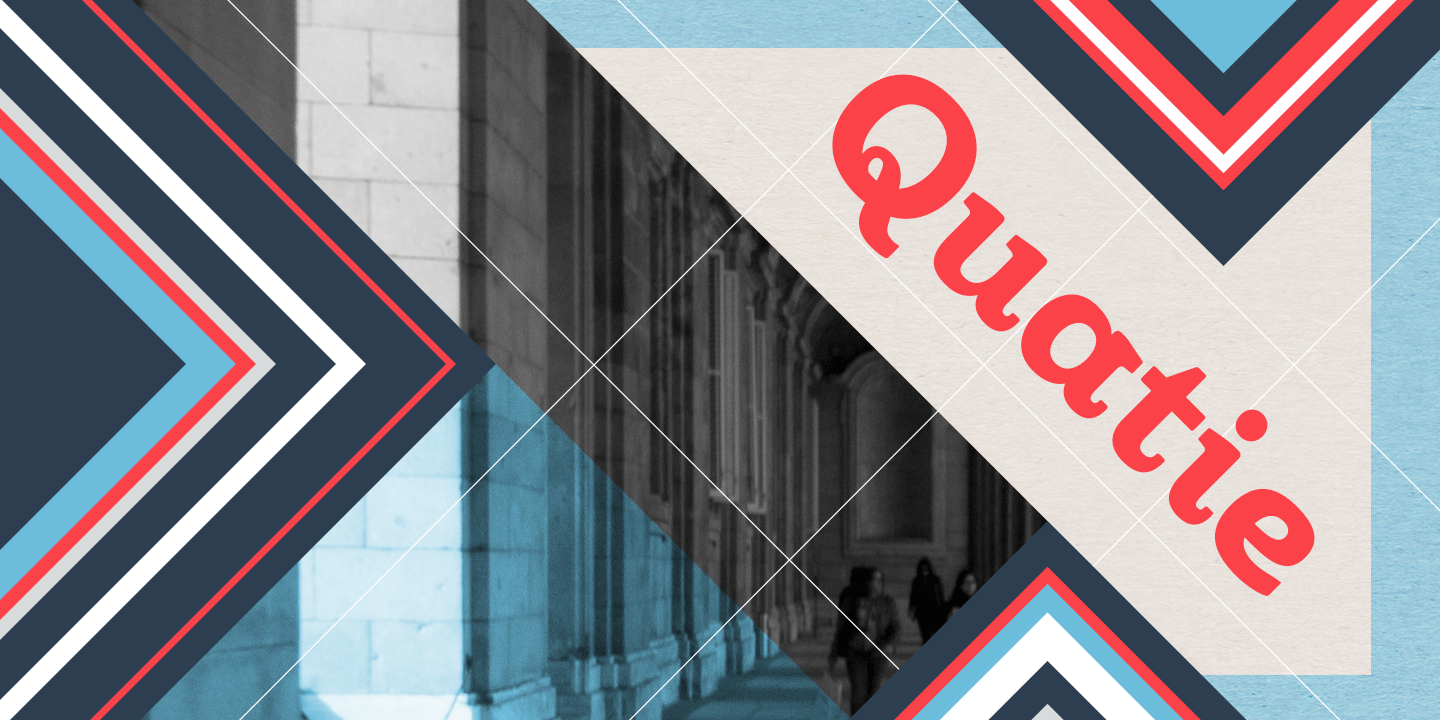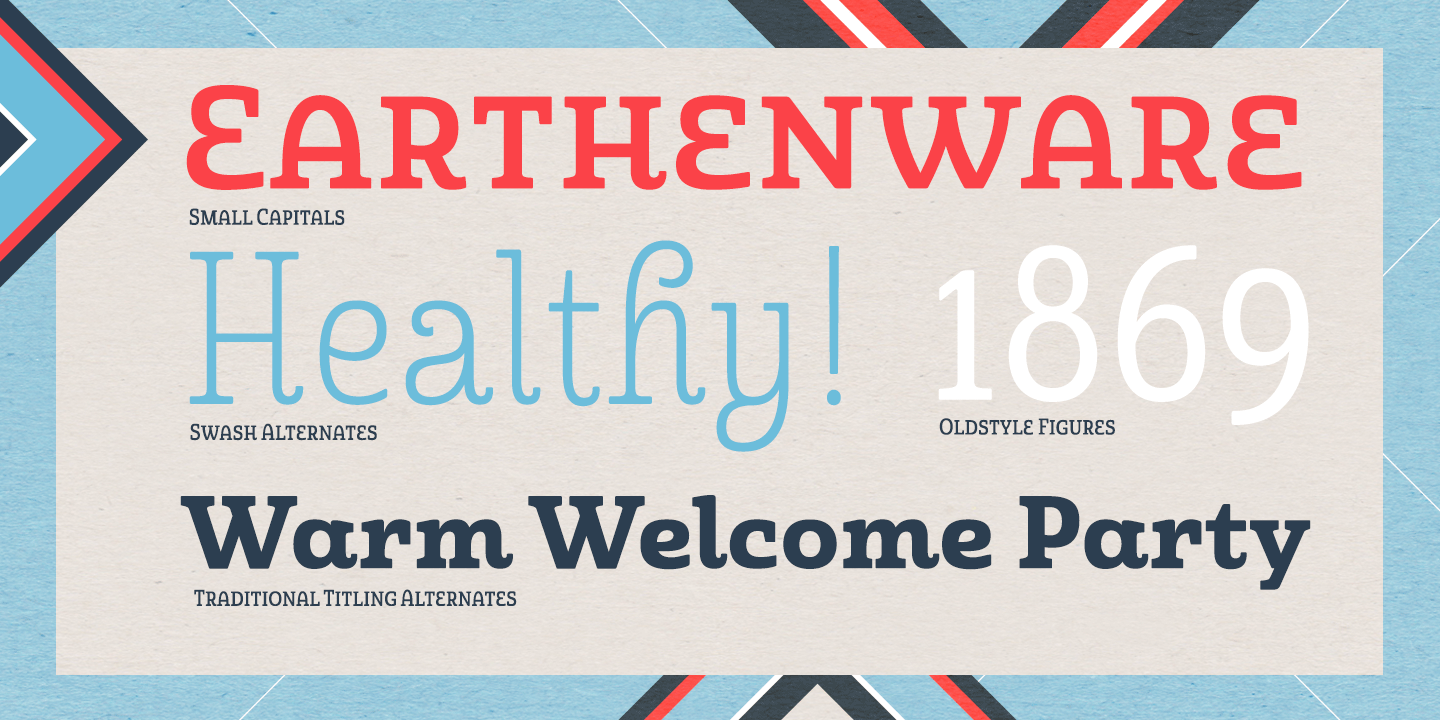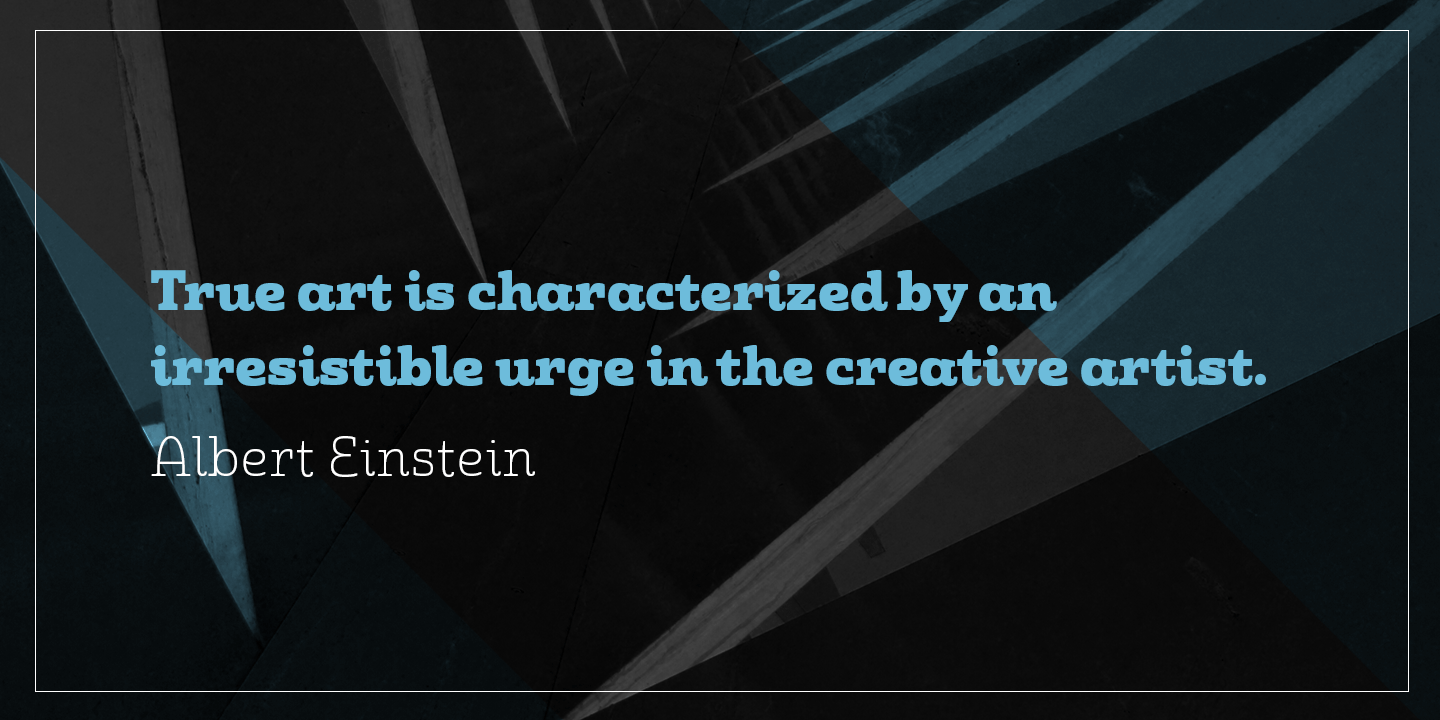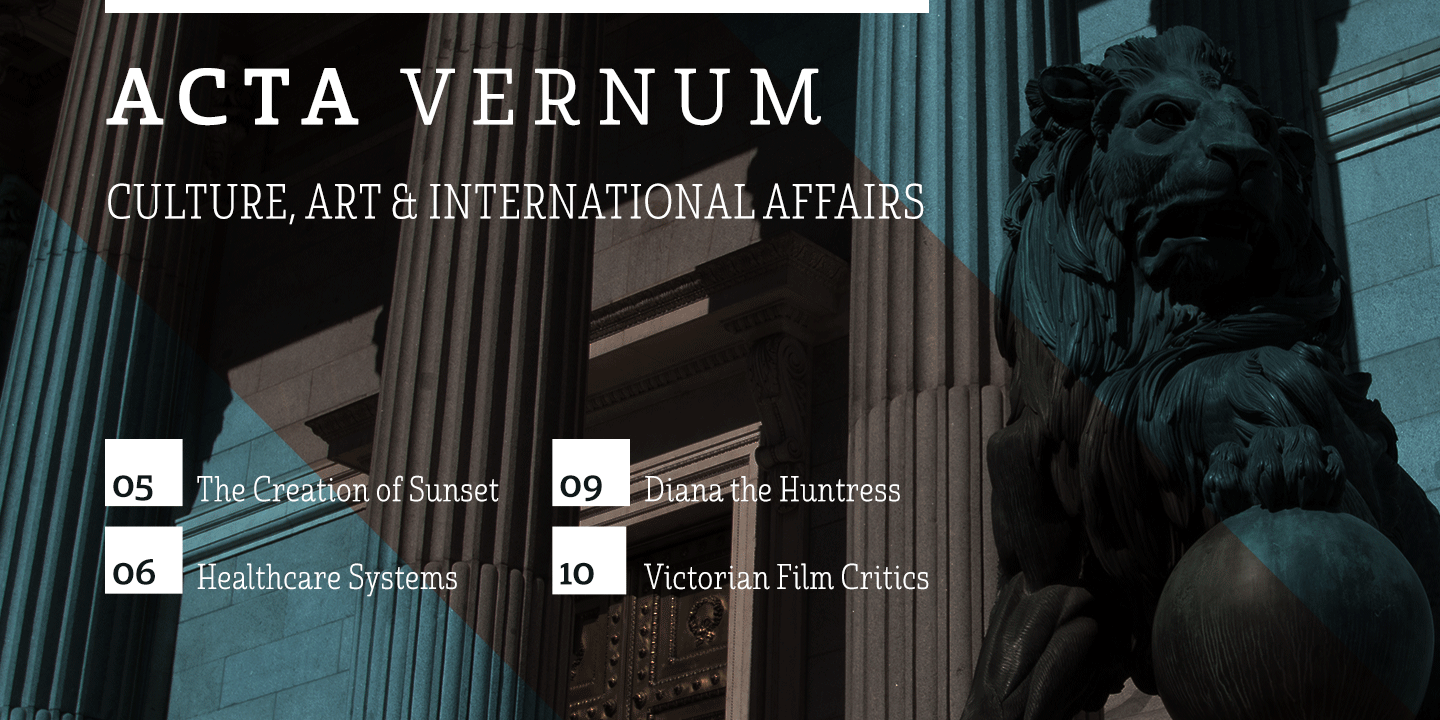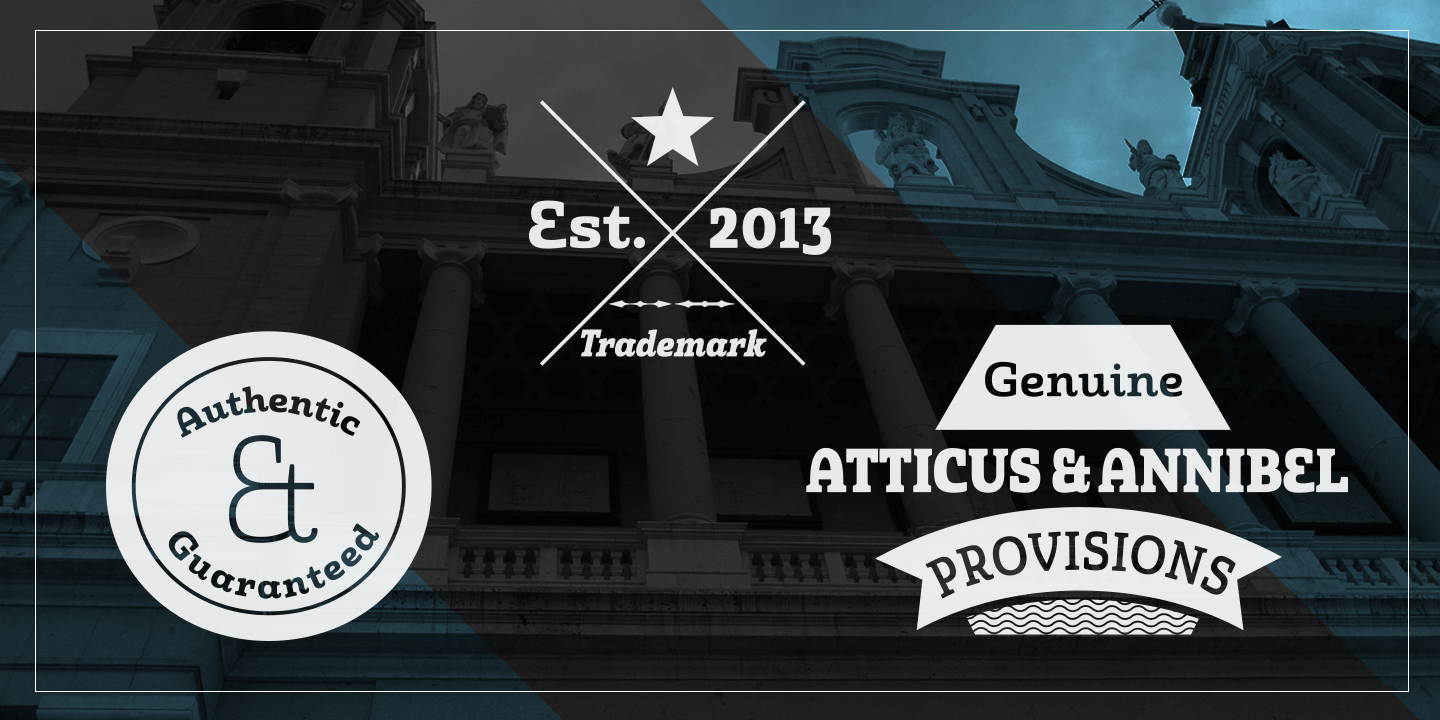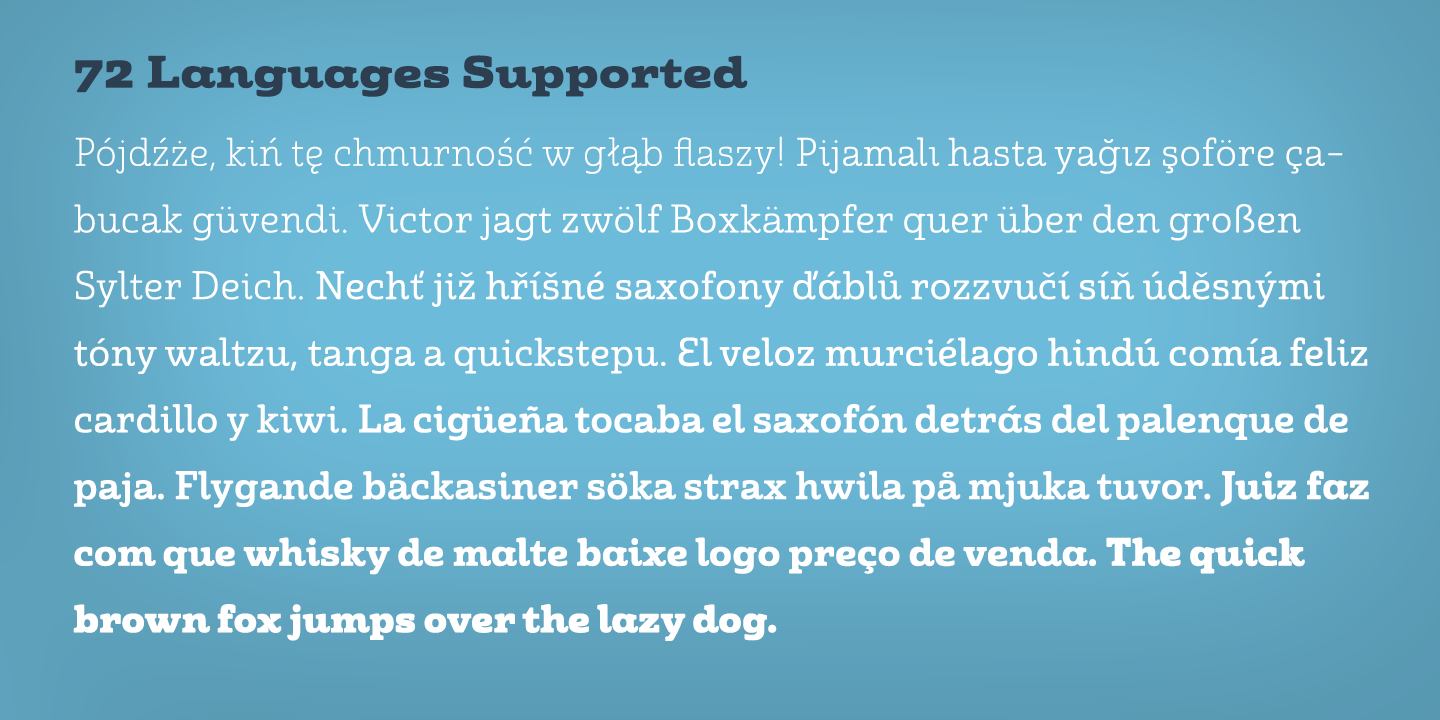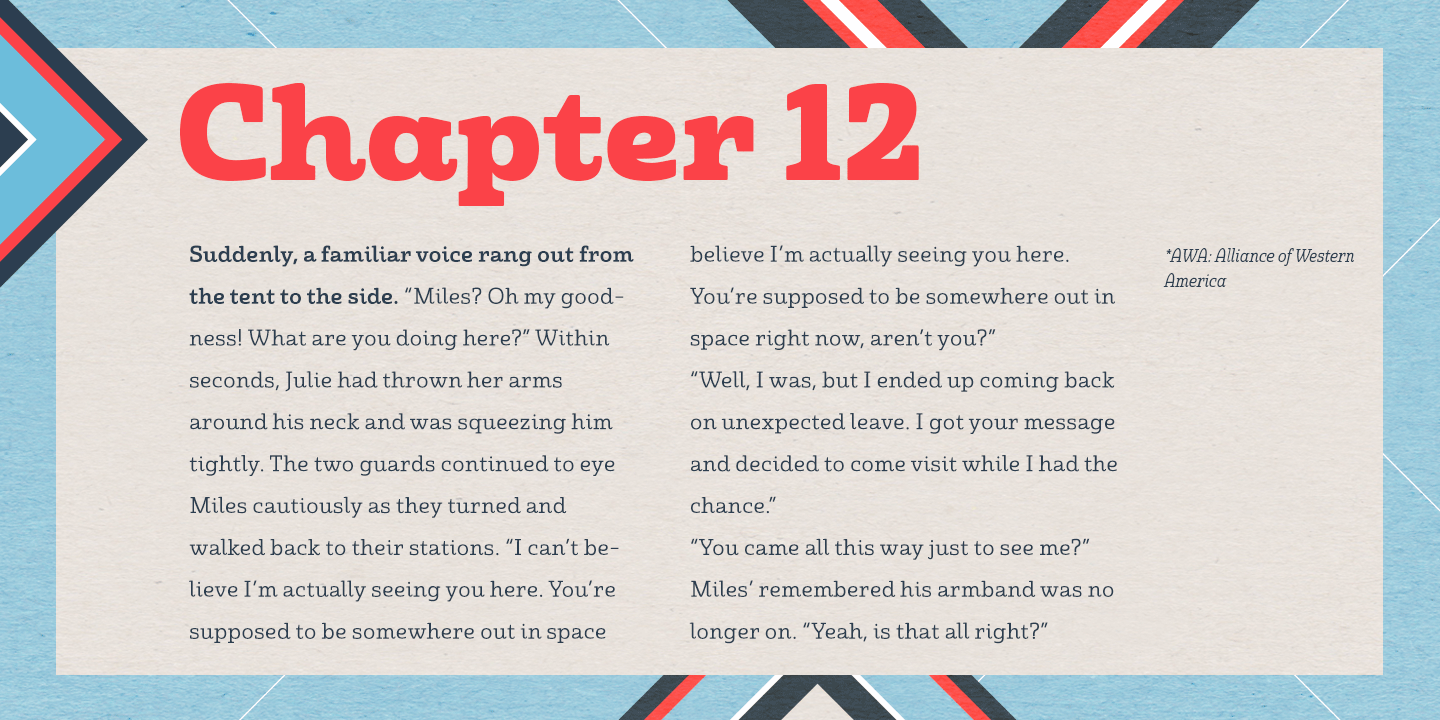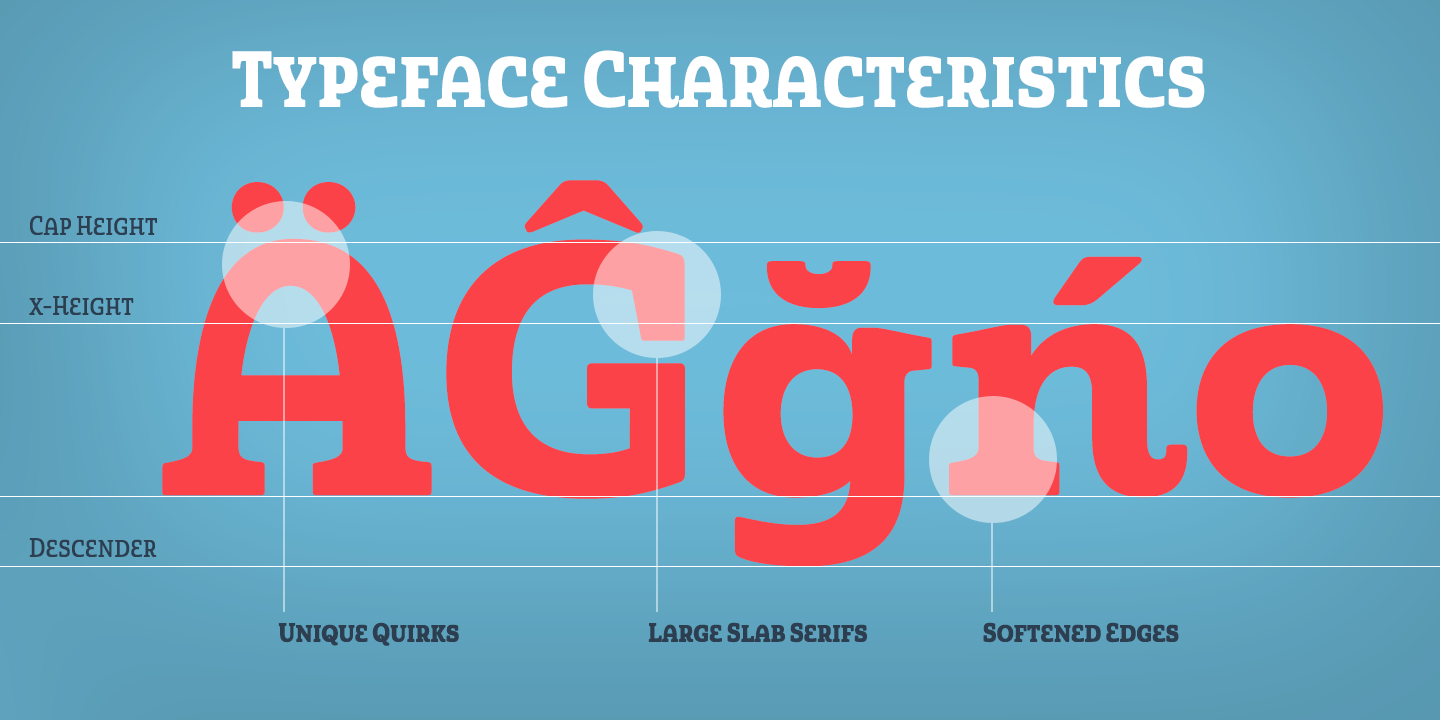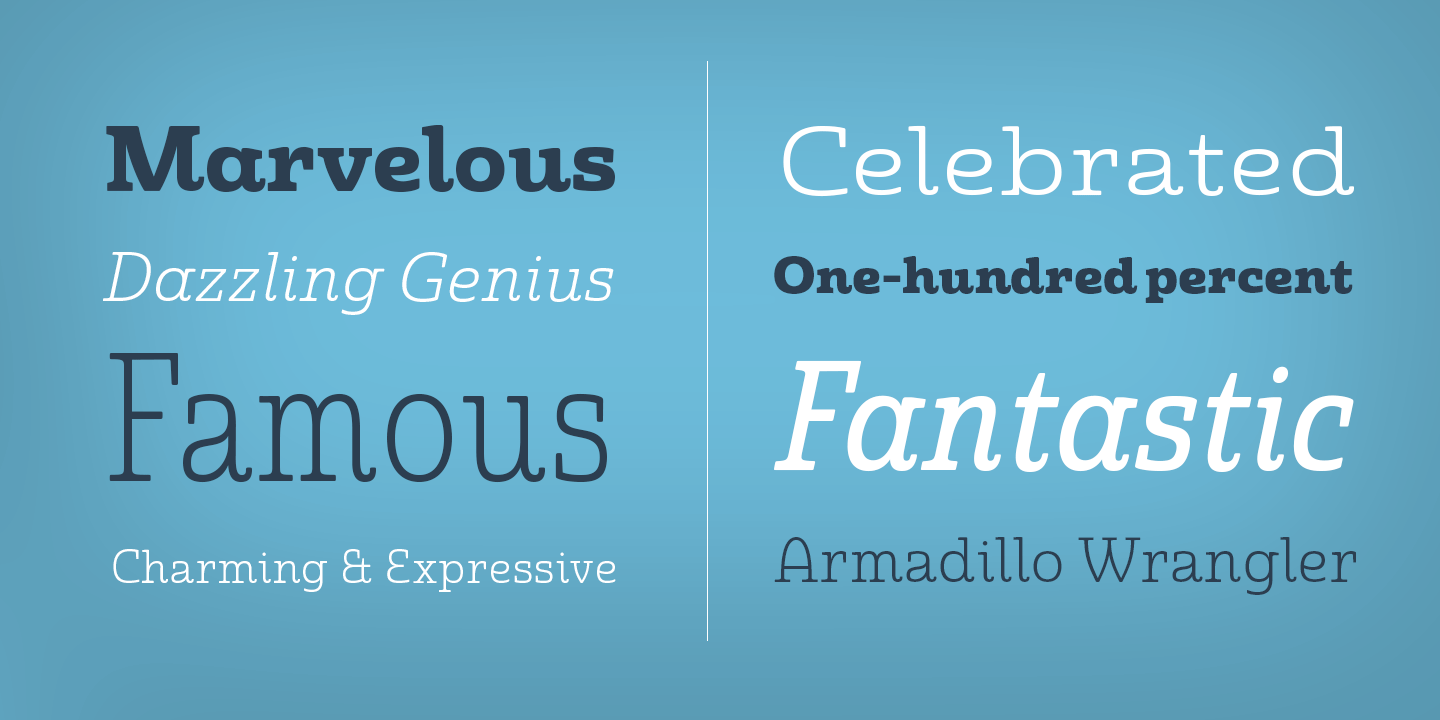
Quatie
Buy NowOriginally a conceptual approach from the Chatype project of Jeremy Dooley and Robbie de Villiers, Quatie has been restructured to add a new industrial element to Insigne's offerings. Like the Official Font of Chattanooga, Tennessee, Quatie definitely carries a contemporary, hipster feel. Quatie similarly draws much of its inspiration from the industrial brawn of the railroad and the unique characteristics of Cherokee letterforms, giving it an atypical form not usually found in an industrial slab.
While the Quatie concept was originally set aside for the more technological look of Chatype's final image, Jeremy revived this face from its dormant state and refined it for its commercial release in 2013. This bracketed slab with its slightly rounded, soft edges adds a warm, retro, industrial element to Insigne's offerings. The resulting quirky, ?hipster? vibe of Quatie lends its voice to give an unparalleled edge to your designs.